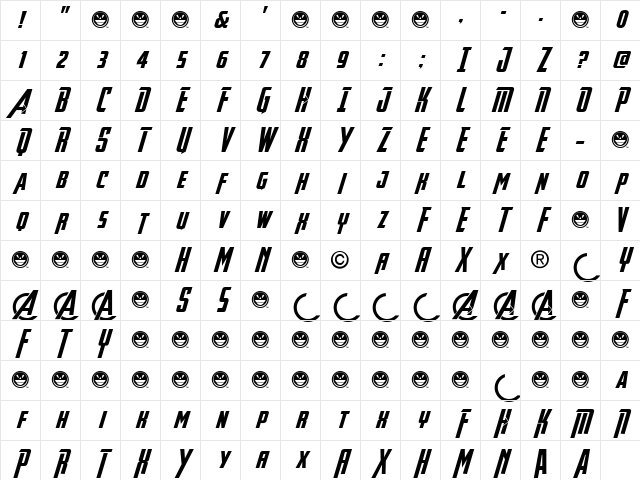
Complete Avengeance Heroic Avenger Italic glyph index. Displaying only characters natively supported by Avengeance Heroic Avenger Italic font.
Avengeance Heroic Avenger is a composed and adaptable typeface that performs quietly and consistently across a wide range of design contexts. The slanted form adds forward momentum and visual energy.